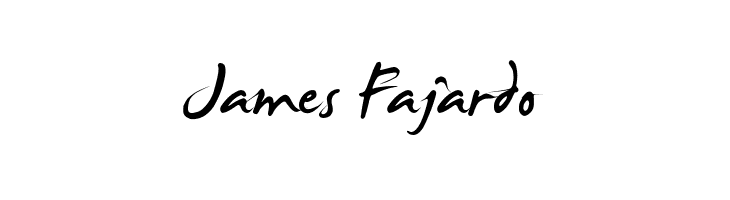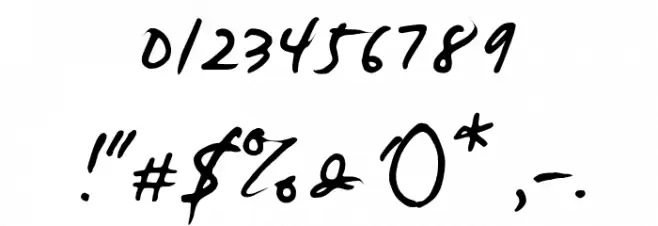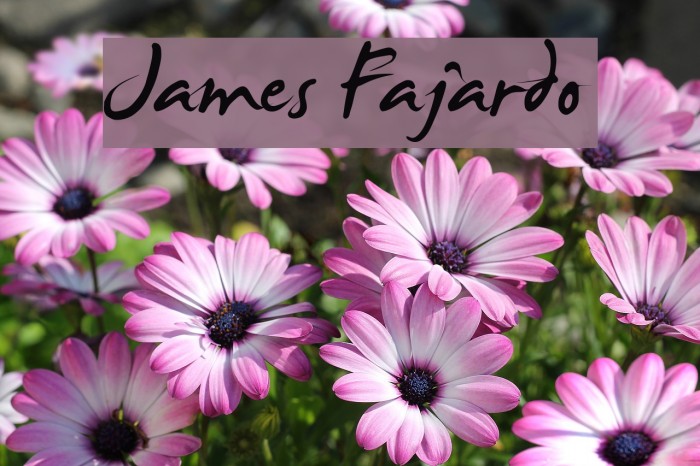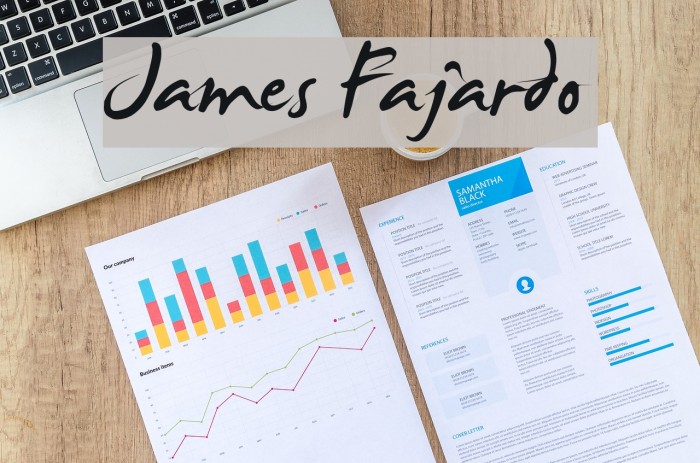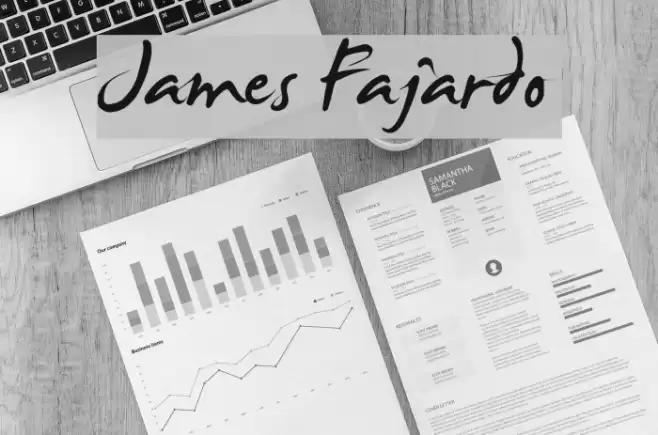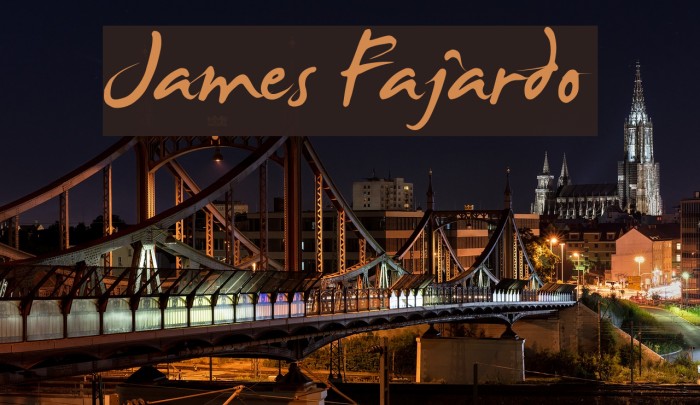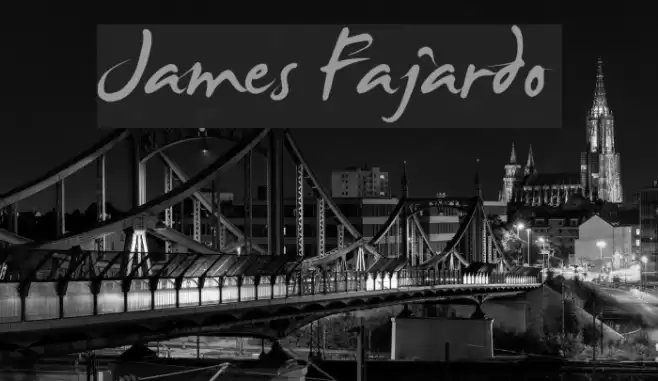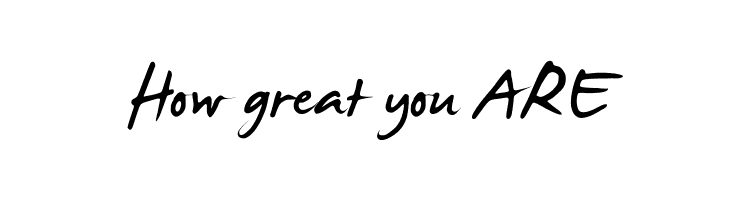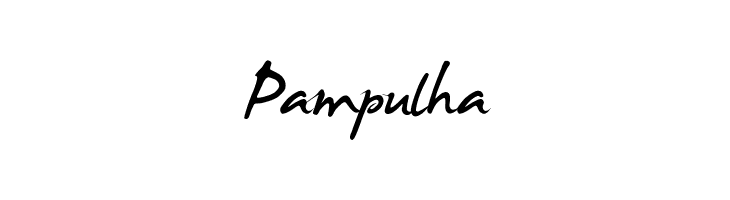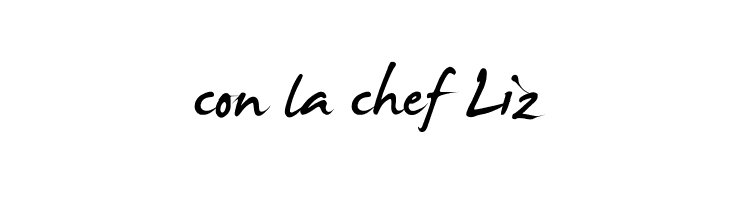
James Fajardo Font
James Fajardo Description
This font exhibits a dynamic and fluid handwritten style, characterized by its elegant and slightly irregular strokes that mimic natural handwriting. The letters are connected in a cursive manner, giving it a personal and informal touch. The uppercase letters are bold and prominent, while the lowercase letters maintain a consistent flow, enhancing readability. The numerals and special characters follow the same handwritten aesthetic, ensuring uniformity across all characters. This font is ideal for projects that require a personal or artistic flair, such as invitations, greeting cards, or creative branding.
| Use Case | Logos, Headlines, Creative projects |
| Proposed Projects | Ideal for invitations, greeting cards, artistic branding, and personal projects. |